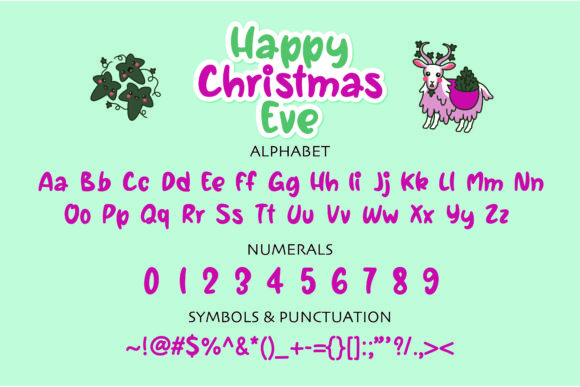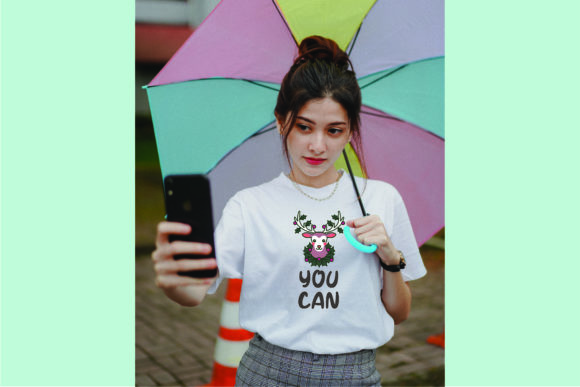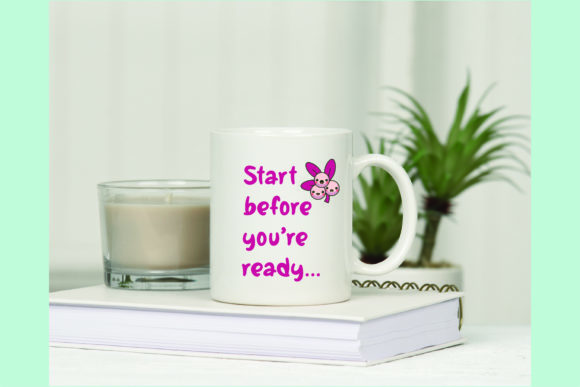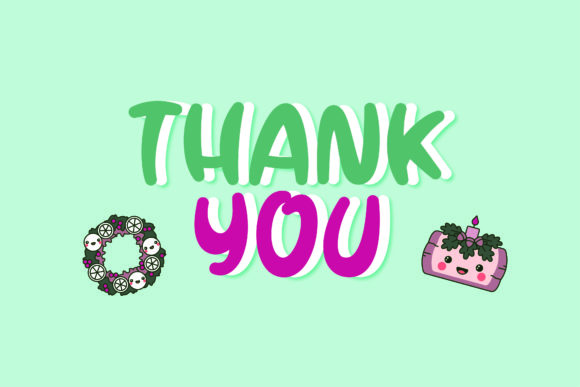
Happy Christmas Eve Font – Free Download
Introduction to Happy Christmas Eve Font
Happy Christmas Eve is a cute and quirky, round lettered handwritten font.
Whether you are using it for cartoon-related designs, children games, quotes, titles, brand names, book covers, posters, or just any creation that requires a touch of joy, this font is a great choice .
Key Features of Happy Christmas Eve Font